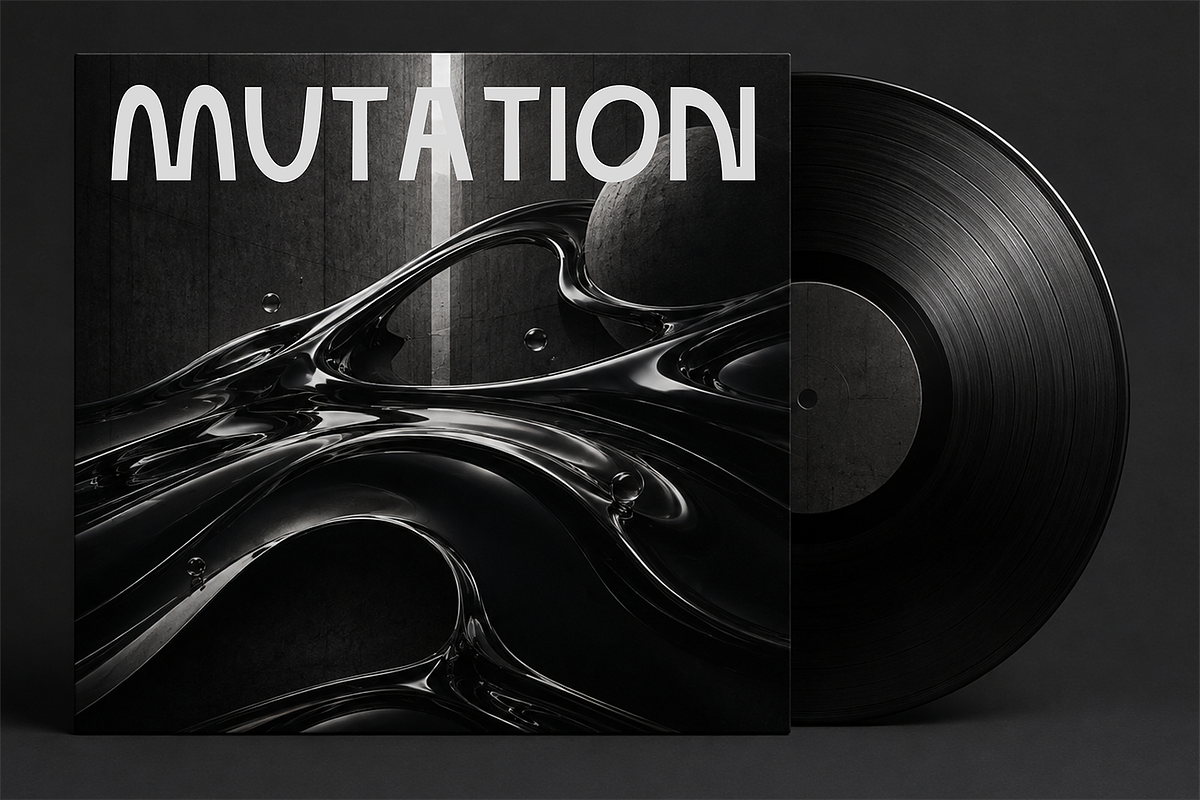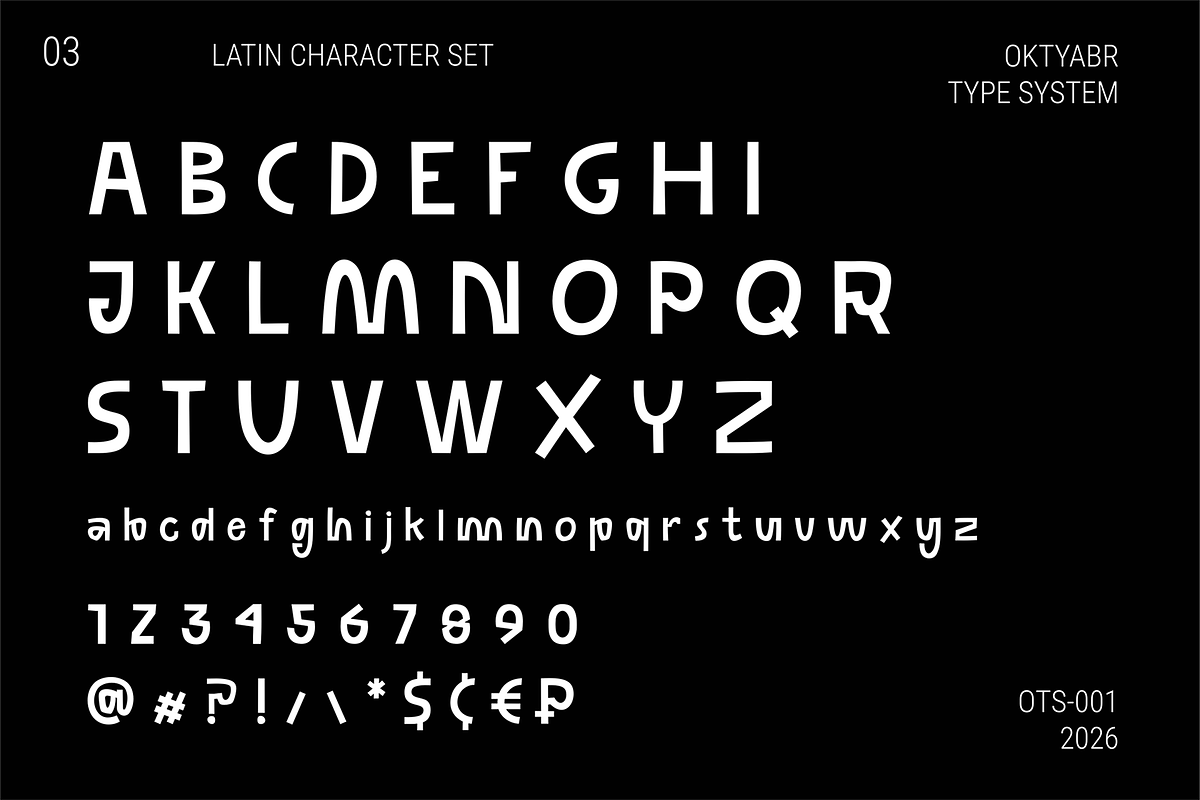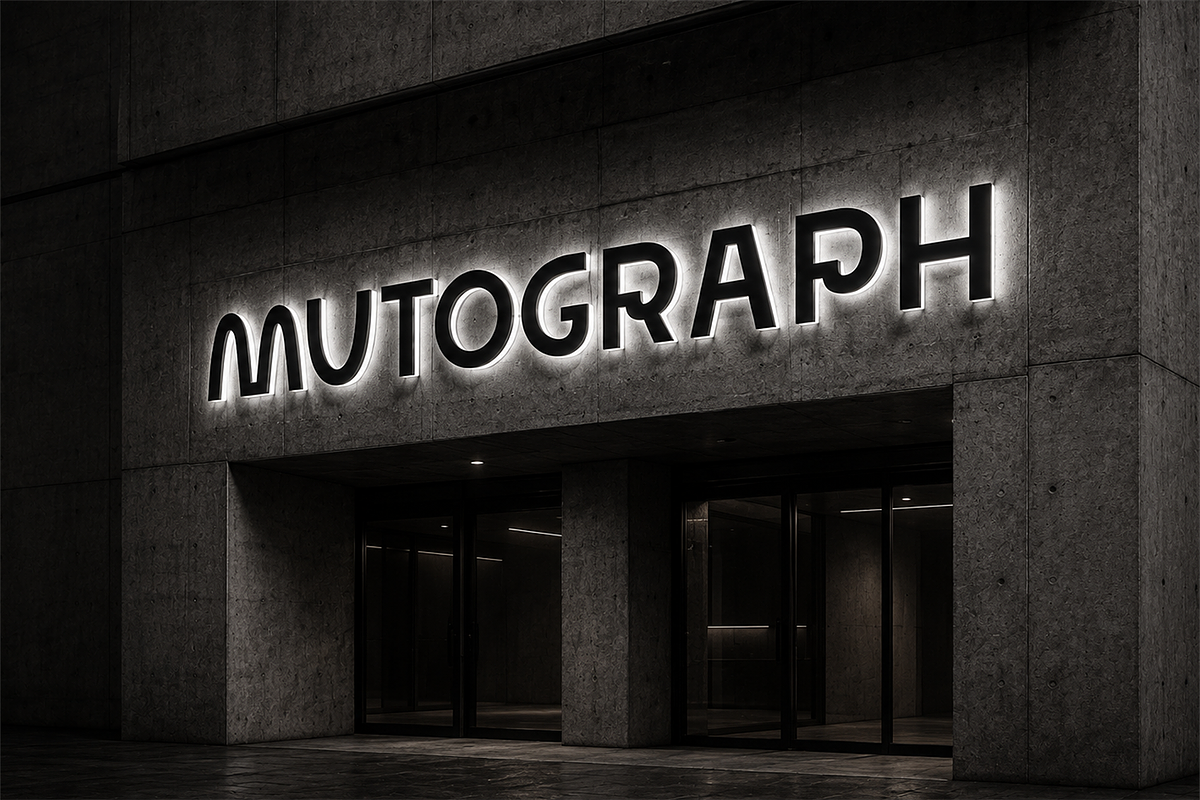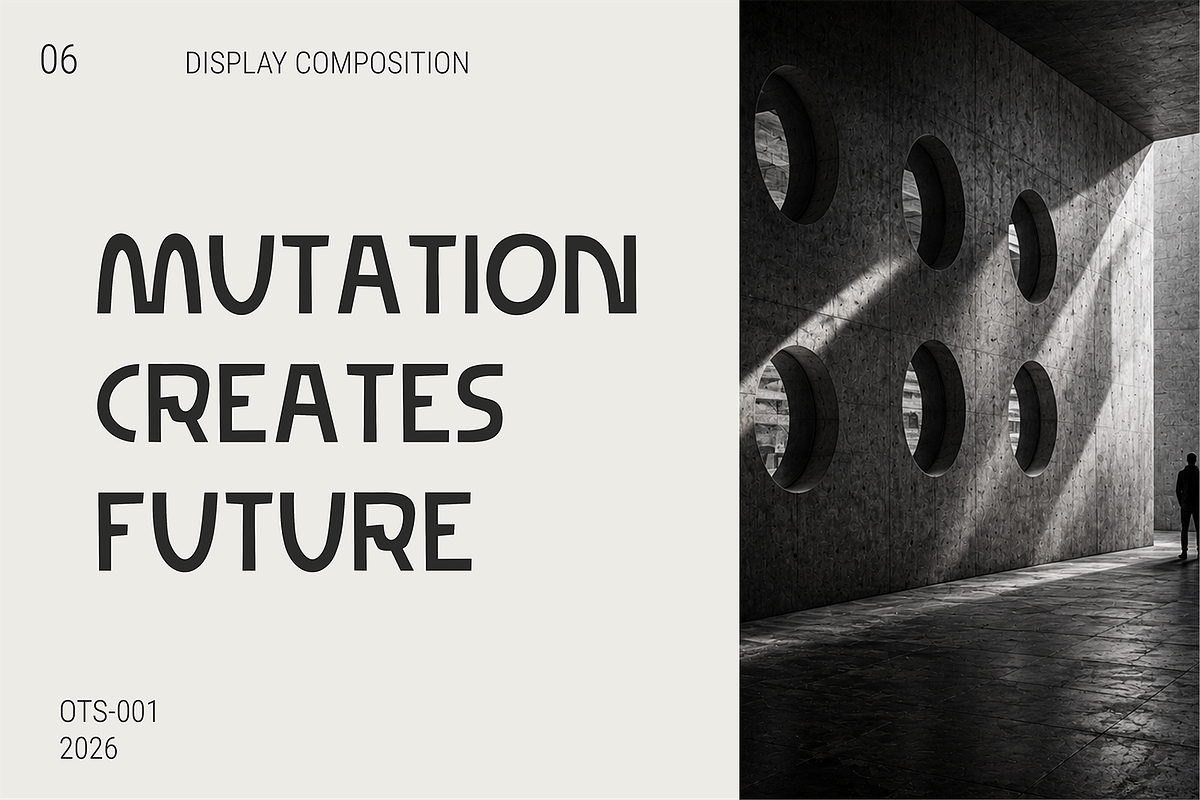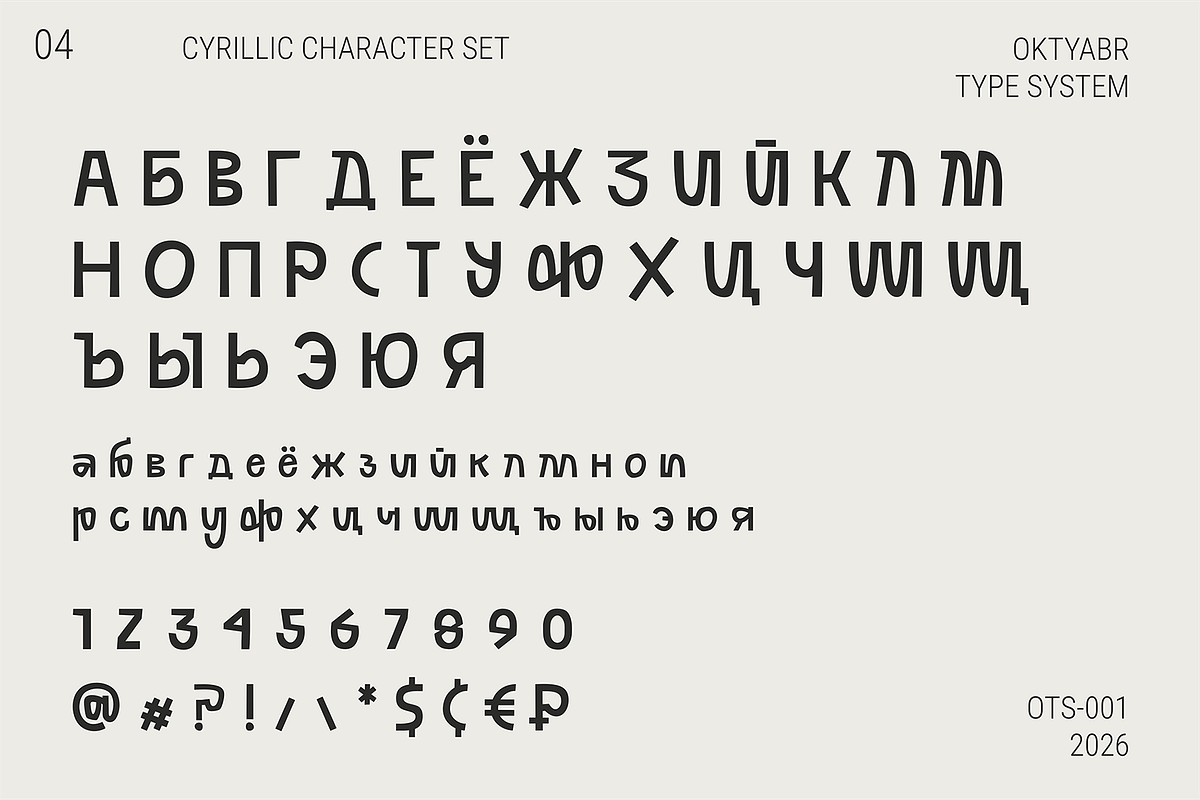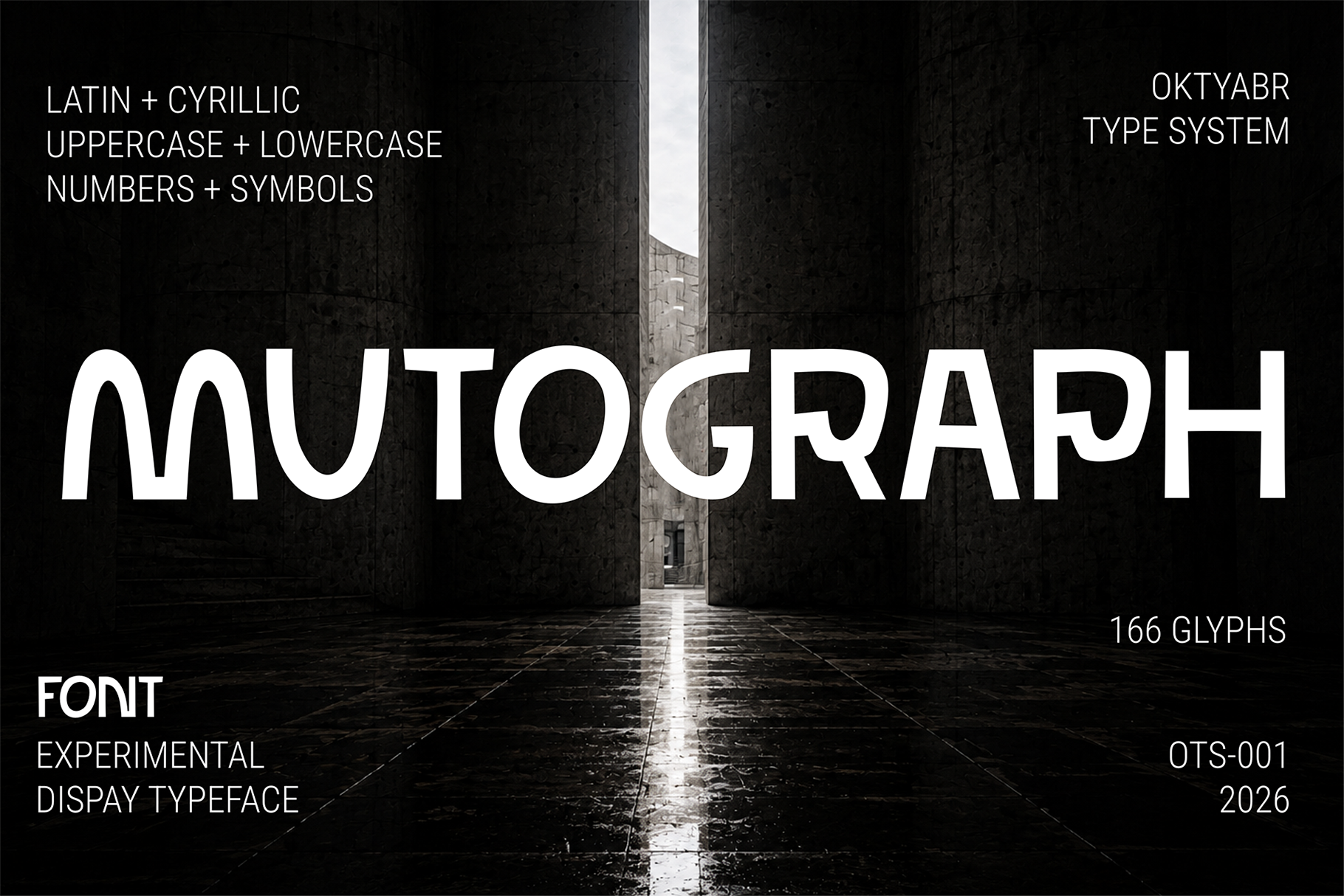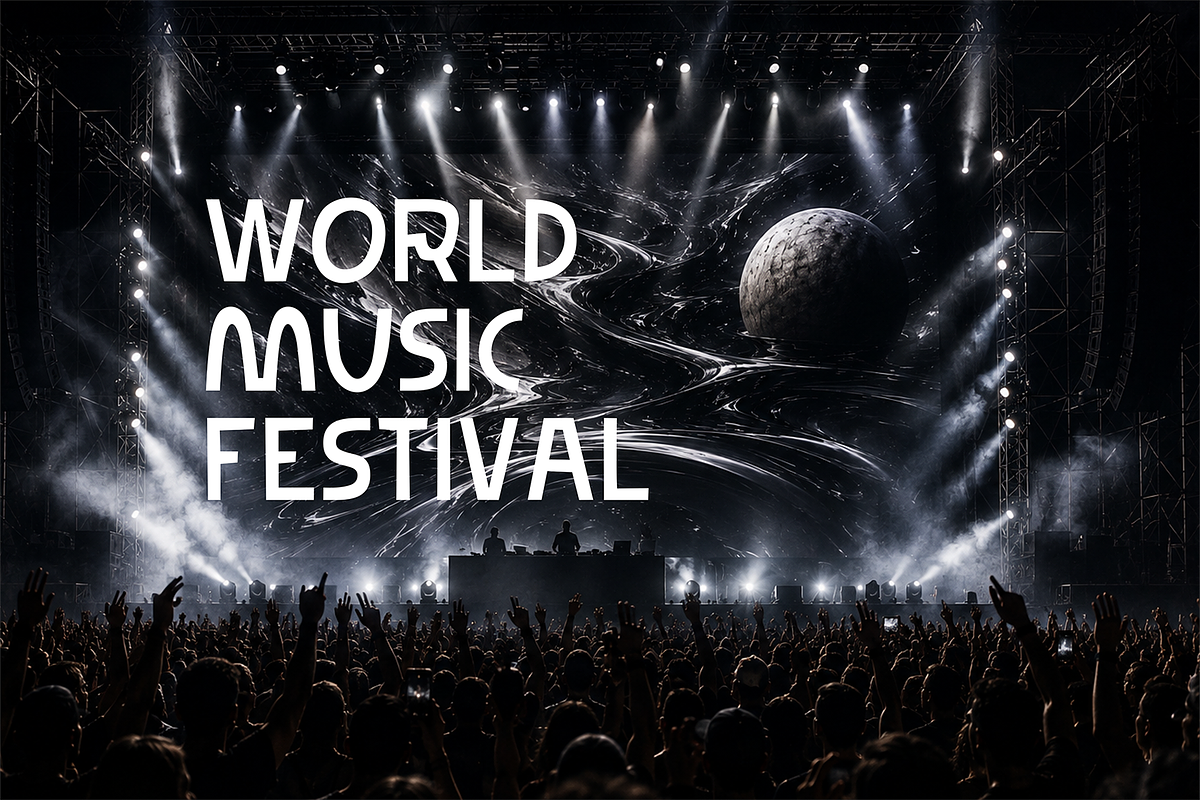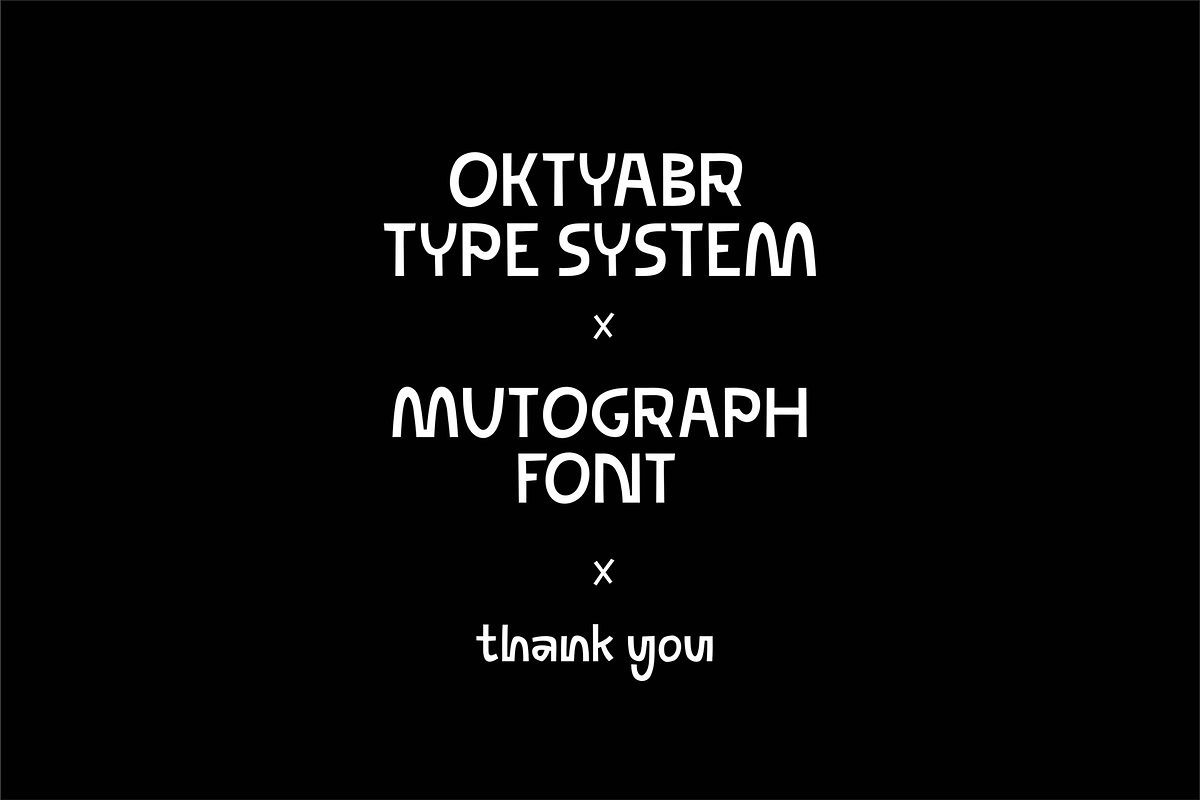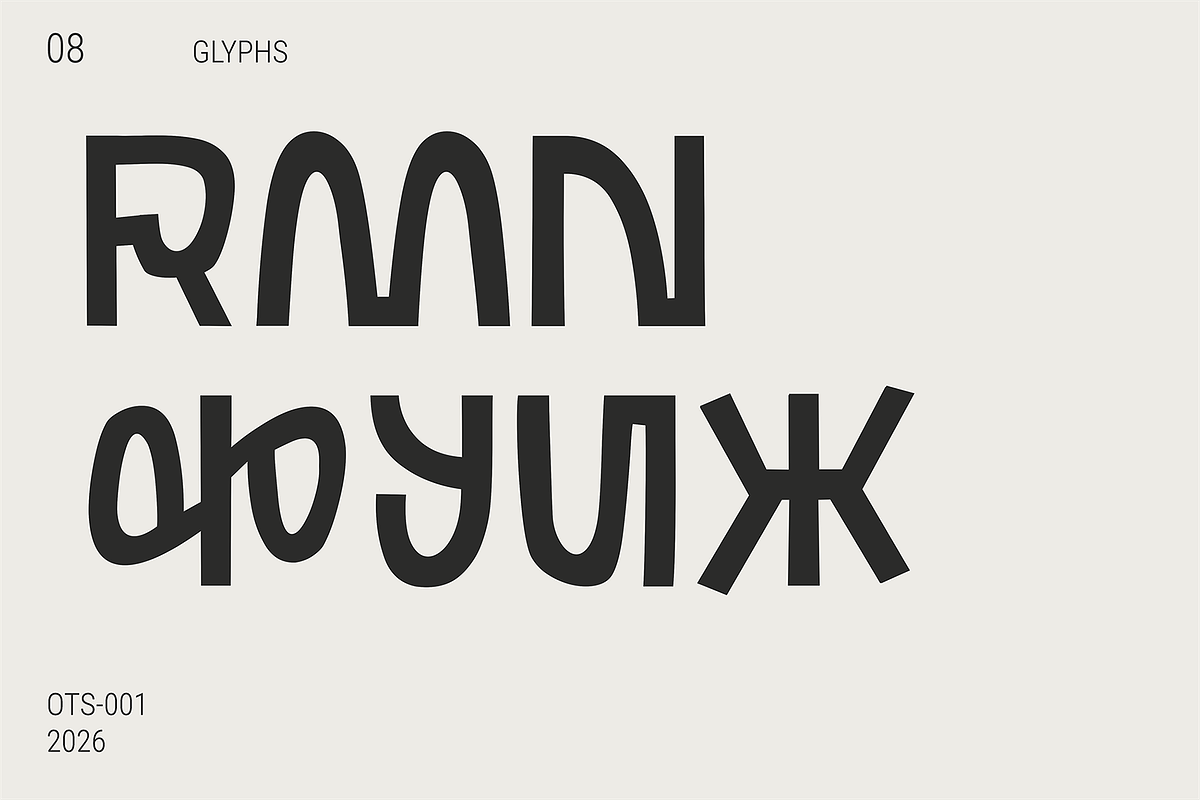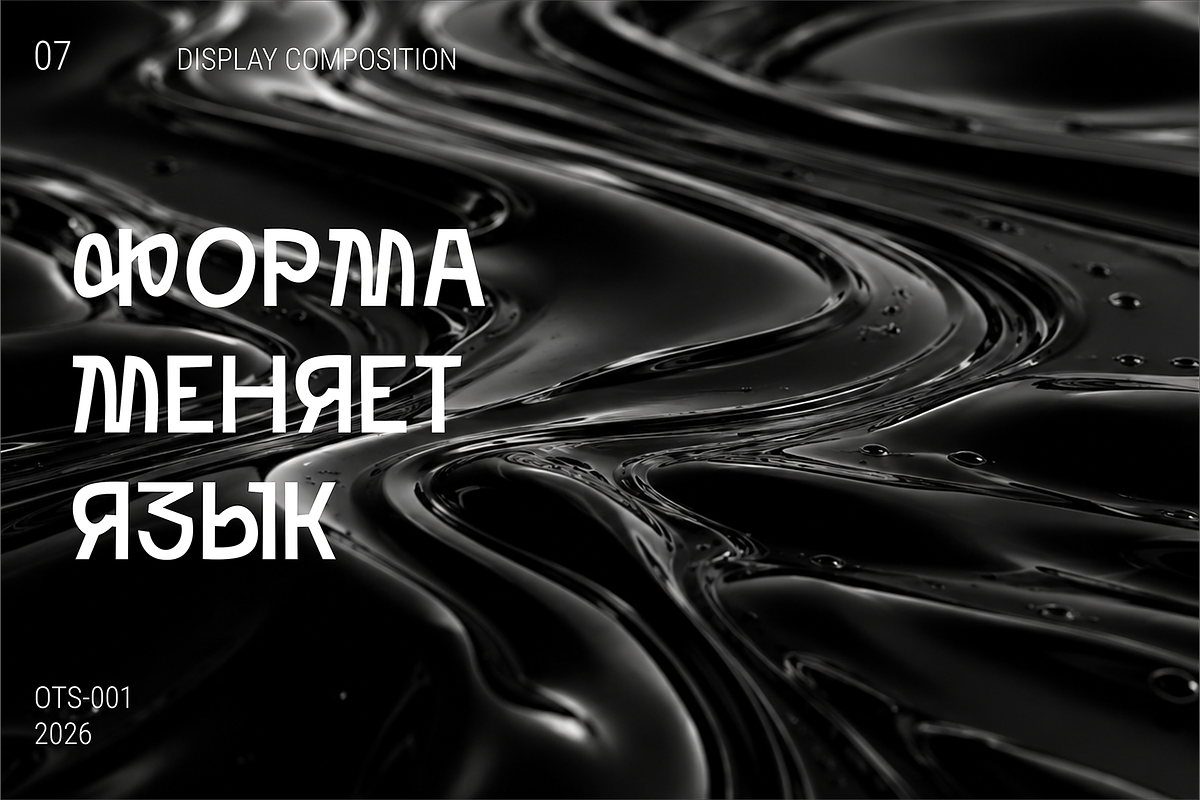
Mutograph Futuristic Display Font
MUTOGRAPH — FUTURISTIC DISPLAY FONT
MUTOGRAPH is an experimental display font where geometric letterforms mutate into unexpected, abstract shapes.
Bold, futuristic and unconventional, it is designed for projects where typography becomes a strong visual element rather than simply text.
LATIN + CYRILLIC
MUTOGRAPH includes Latin and Cyrillic character sets with uppercase and lowercase letters, numerals, punctuation and symbols.
166 glyphs included.
Latin & Cyrillic
Uppercase & lowercase
Numbers & symbols
Regular style
MUTOGRAPH / OTS-001 First typeface release from OKTYABR TYPE SYSTEM.
Designed by Ilya Oktyabr, 2026